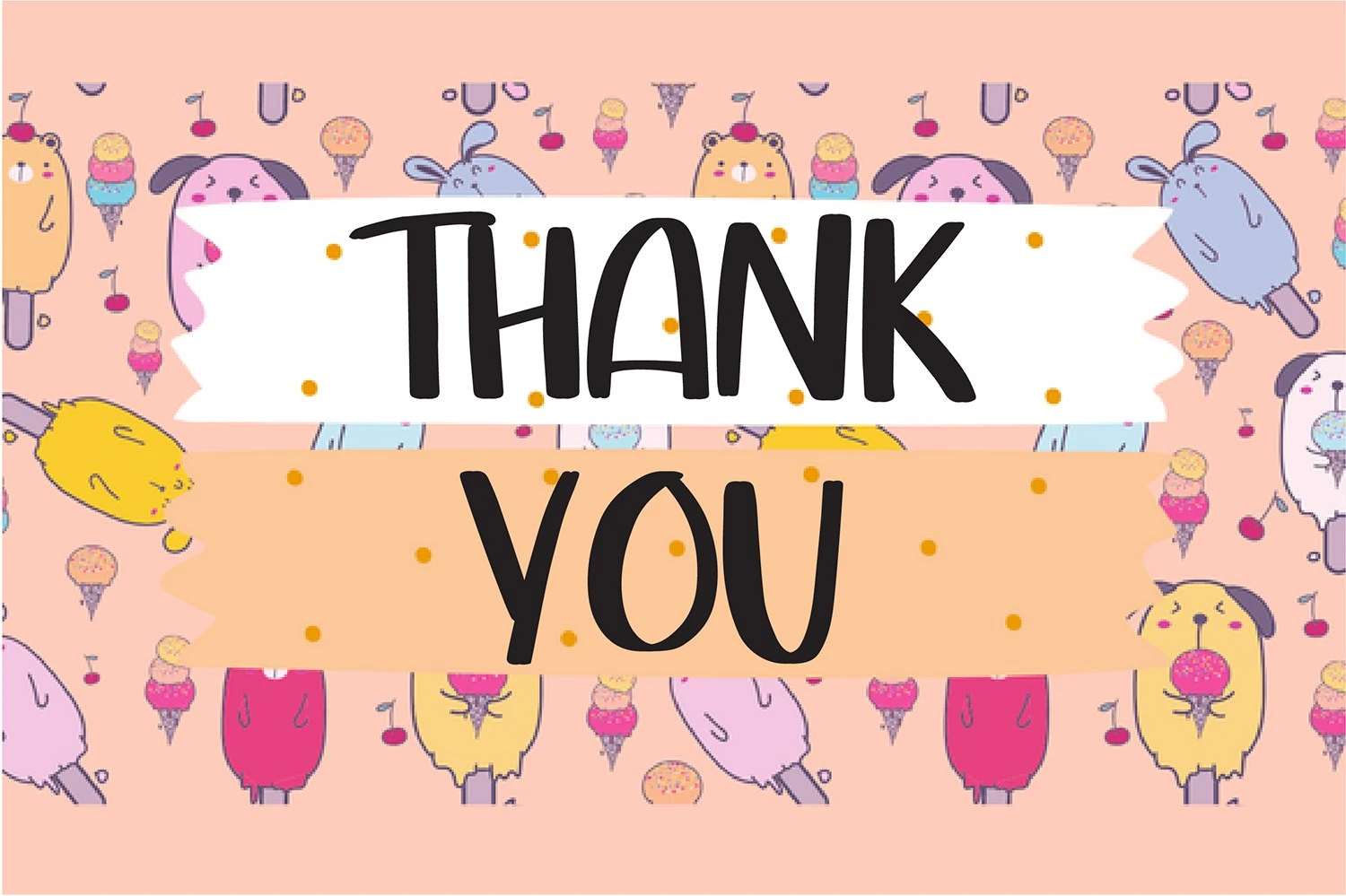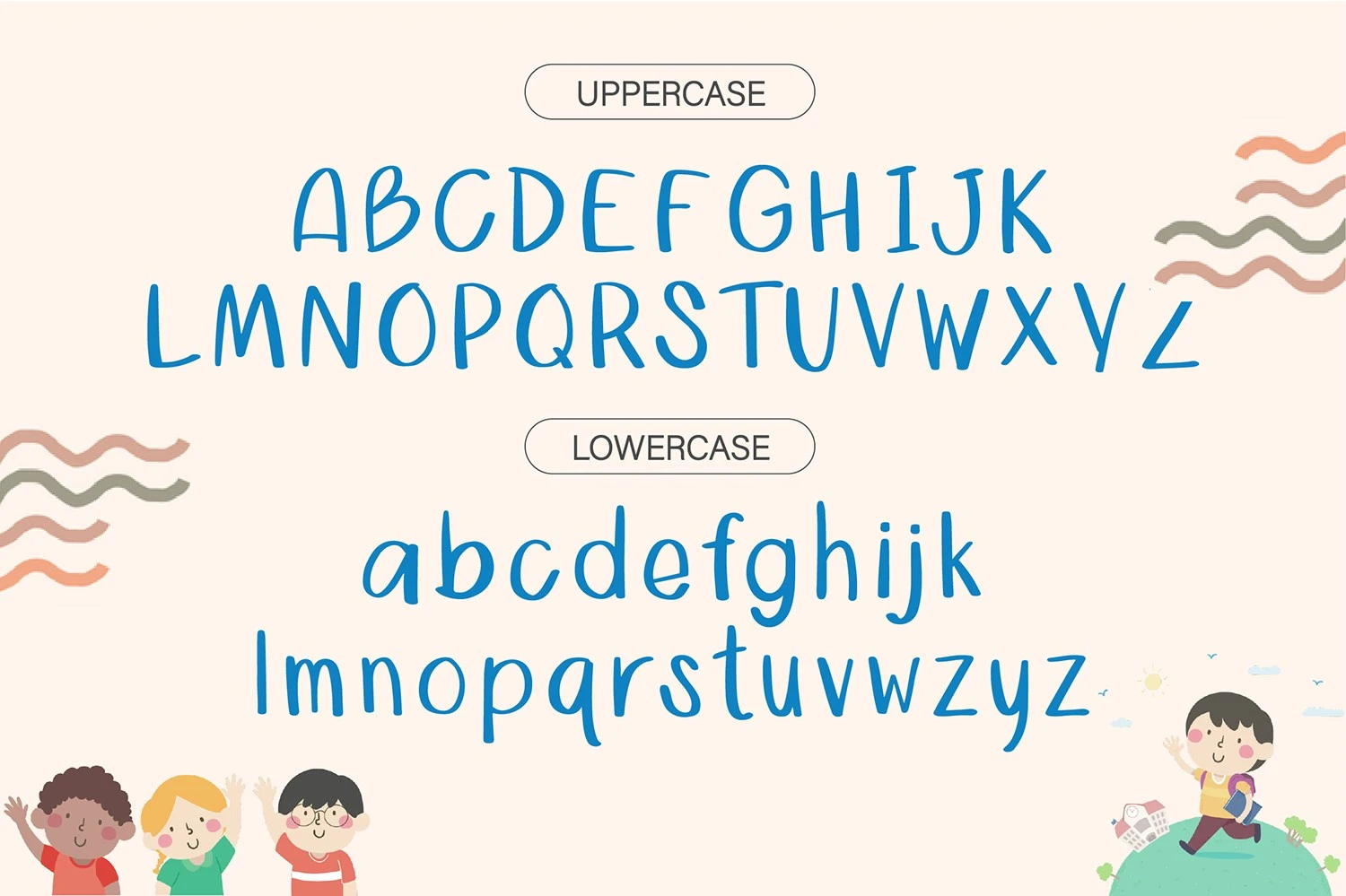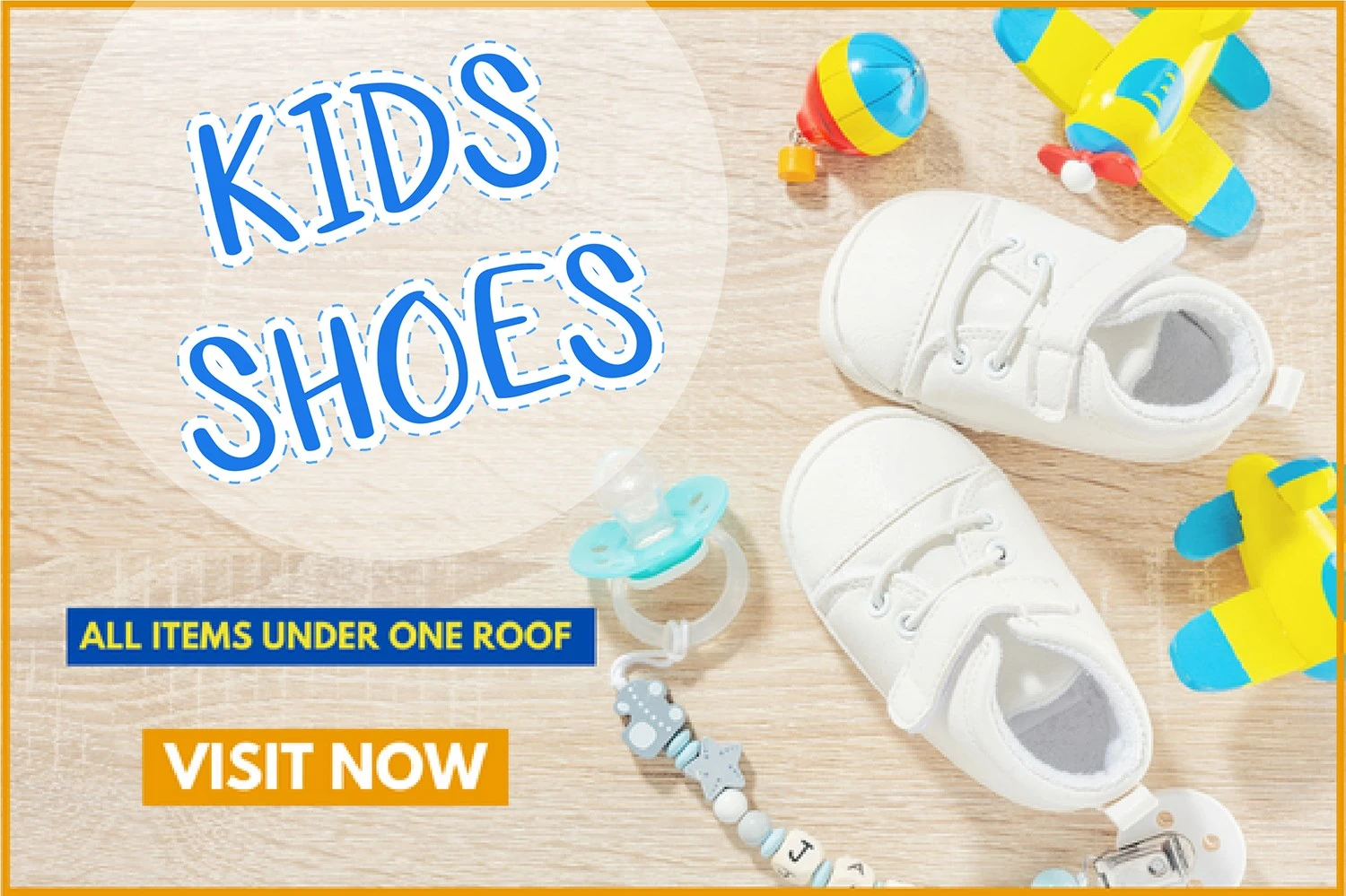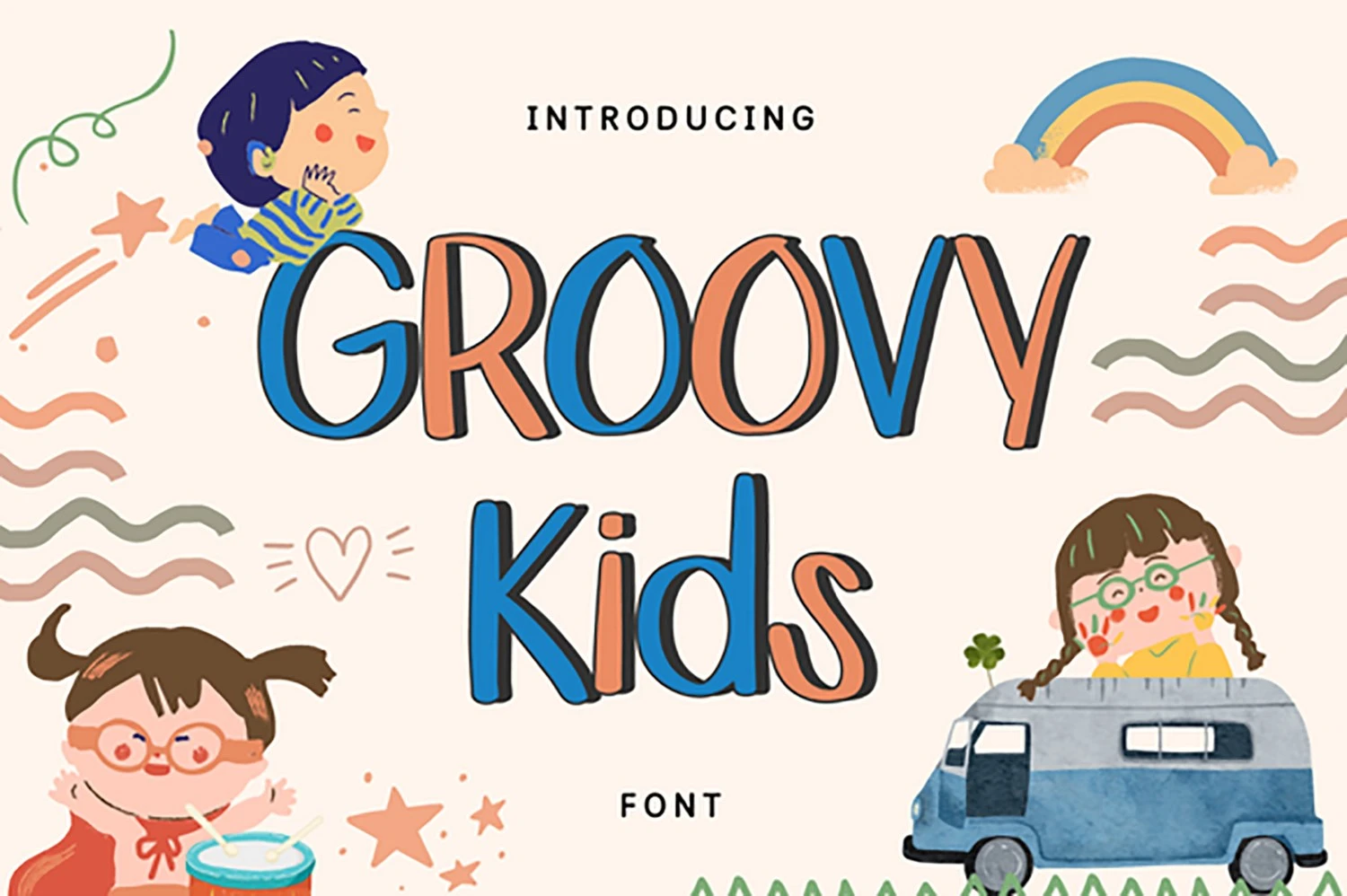
Groovy Kids is a cute and playful handwritten font perfect for use on cheerful topics. Very suitable for childrens themed designs, especially when combined with bright colors.